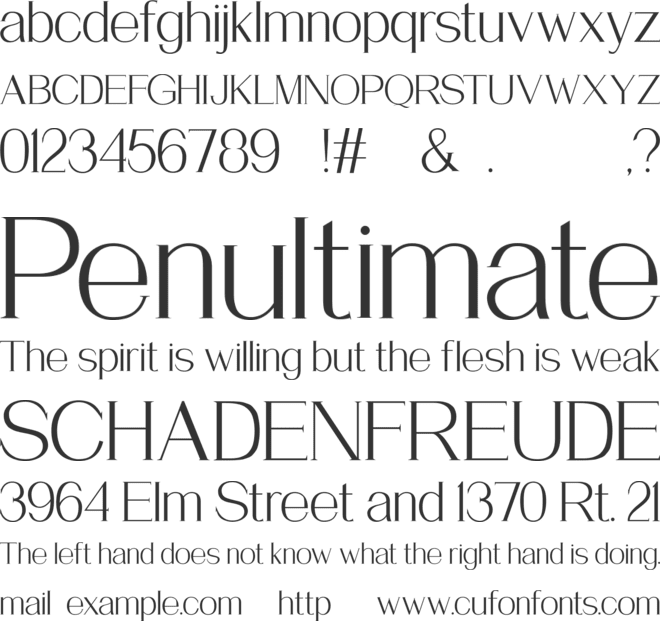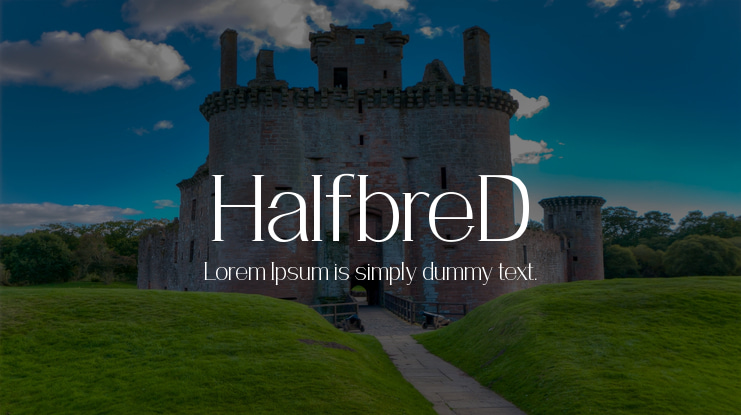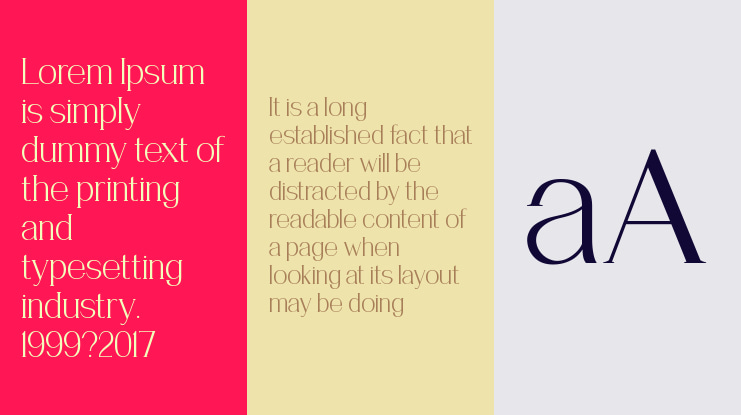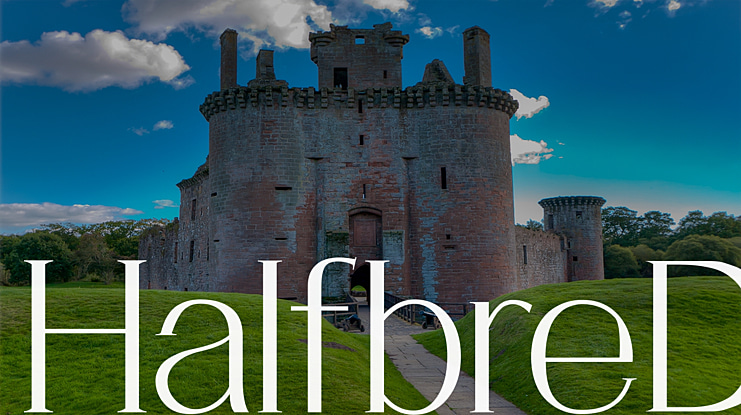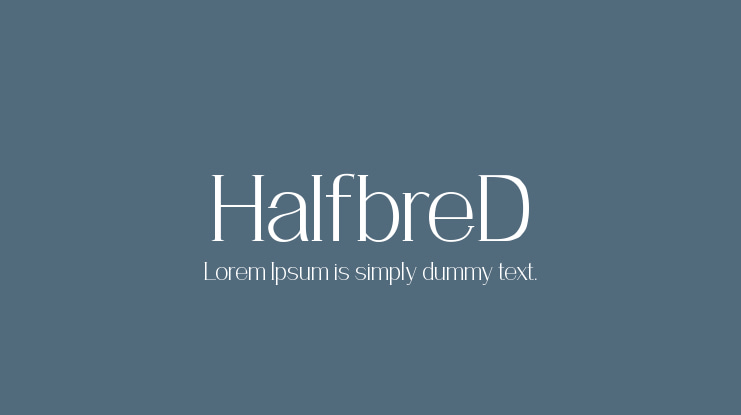
HalfbreD Font
HalfbreD is a sans & serif font made with simple shapes wrapped with a beautiful and minimalist touch, producing a beautiful and elegant font, and supported by binders and more font replacements for each character that will make you explore your design style easier , with various forms of alternative styles that allow for logos, posters, covers, main packaging, t-shirts, business cards, wedding cards and more, so? please taste?